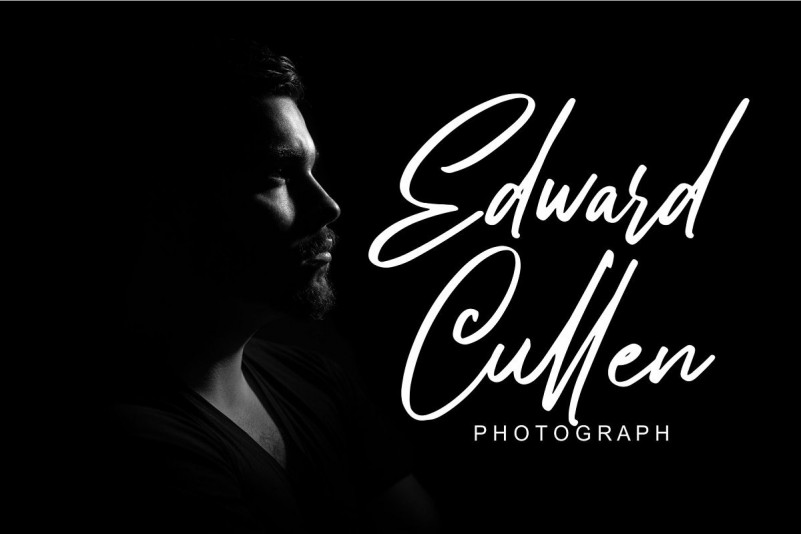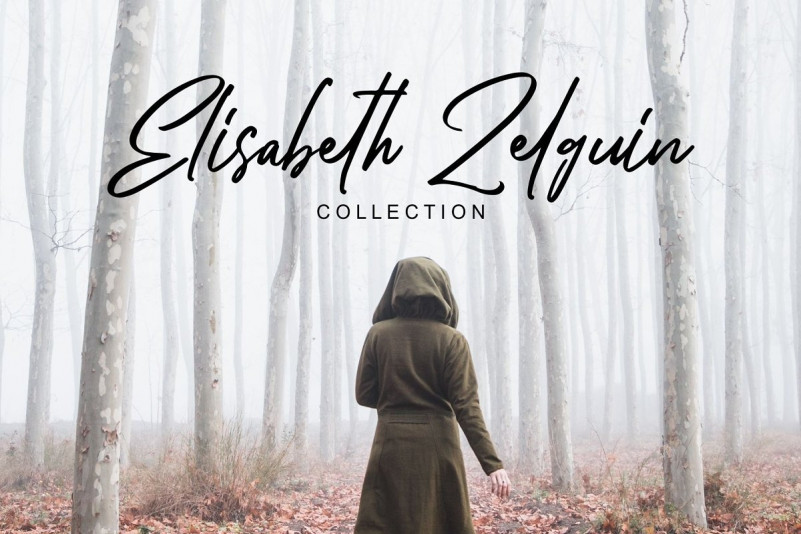
Bellarinde Script Font
Bellarinde Script – Free Demo
Introducing Bellarinde Font. This is a new handwritten script font. This beautiful script can make your text appear elegant, luxurious, and modern! It’s designed and shared by Hanzel Studio. It’s, every single letter has been carefully crafted to make your text look beautiful. With a modern script style this font will be perfect for many different projects ex: photography, watermark, quotes, web design, blog header, poster, wedding, branding, logo, fashion, apparel, letter, invitation, stationery, etc.